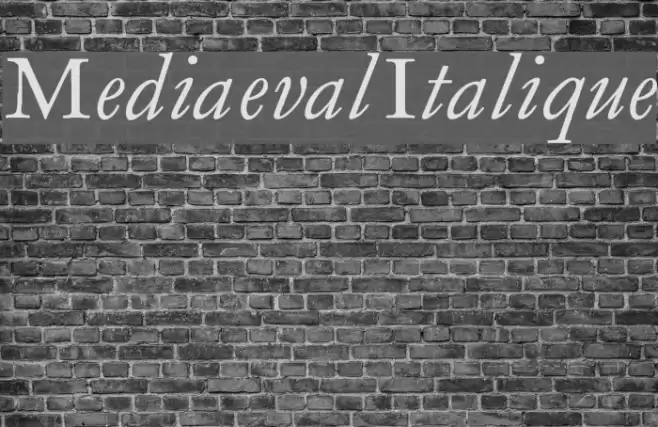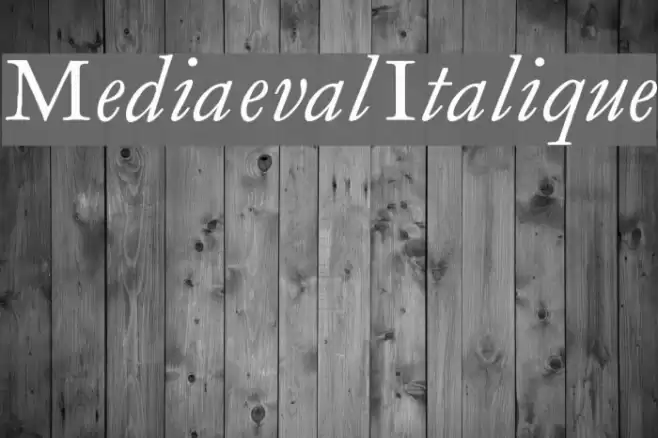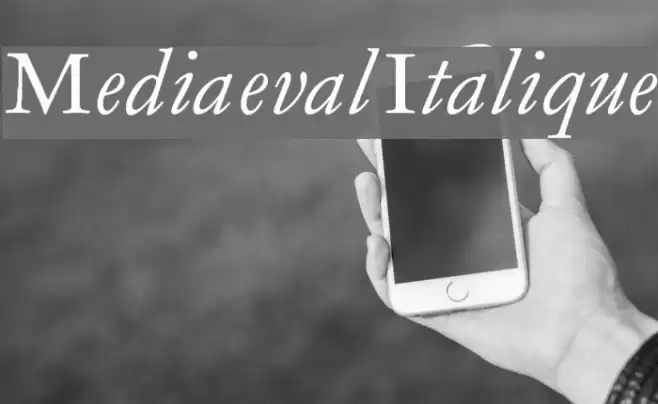
MediaevalItalique Font
MediaevalItalique Description
This font exhibits a classic and elegant style, characterized by its refined serifs and smooth curves. The uppercase letters are stately and well-proportioned, while the lowercase letters feature a distinct italic slant, adding a touch of sophistication. The numerals are clear and balanced, maintaining the font's overall aesthetic. Special characters are thoughtfully designed, ensuring consistency across all glyphs. The font's timeless appeal makes it suitable for a variety of applications, from formal documents to creative projects.
A classic serif font with elegant italics and refined serifs from Uncategorized fonts.
- Proposed Projects: Ideal for wedding invitations, formal documents, book covers, and branding materials.
- Overall Style: Classic
- Use Case: Headlines, Body text, Logos